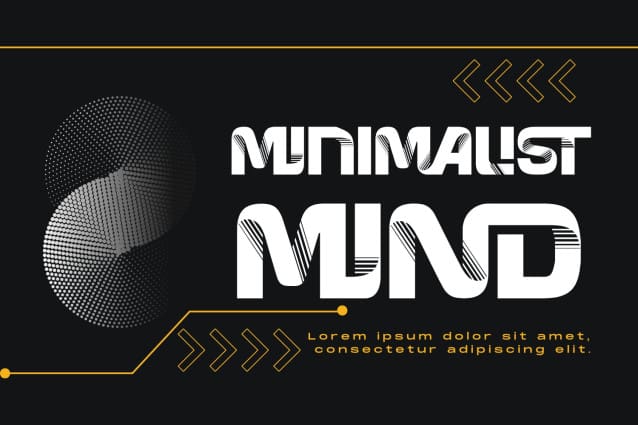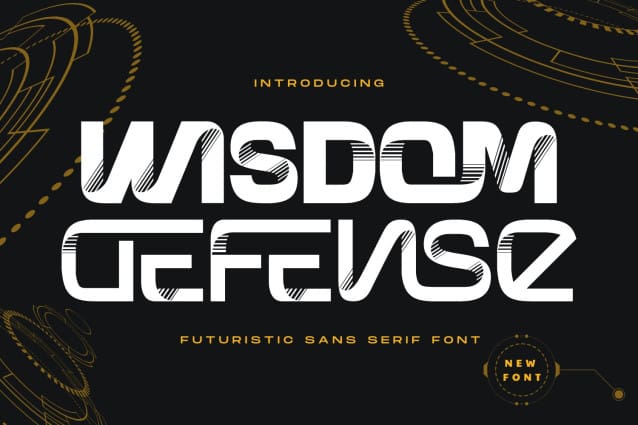
Wisdom Defense Font
Wisdom Defense Font is a folded font, a custom designed premium display font. Geometrical and regular, resulting in a neat and captivating display font. Ideally suited for bold, attention grabbing titles and headings, Kassian flows, twists and folds to create a unique and engaging character set.
Wisdom Defense was built with OpenType features and includes 100 ligatures, alternate, numbers, punctuation, and it also supports other languages.
AC AD AL AN AR AS AT AU AV BE CA CE CH CO CT DE DI EA EC ED EE EL EM EN EP ER ES ET FE FO FR GE HA HE HI HO IE IC IL IN IO IR IS IT JU KE LA LE LI LL LO LY MA ME MI NC ND NE NG NO NT NS OC OF OM ON OO OP OR OT OU OW PA PR RA RD RE RI RO RS RT SE SH SI SO SS ST TA TE TH TI TO TR TT UM UN UR VE WI WO